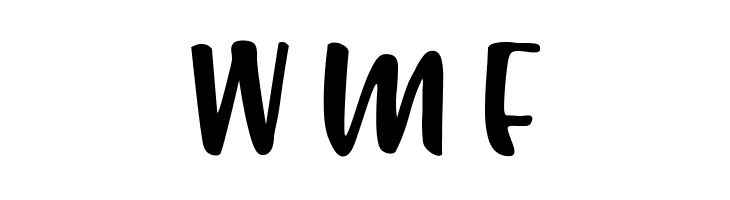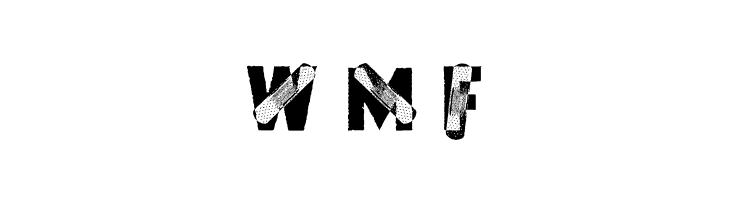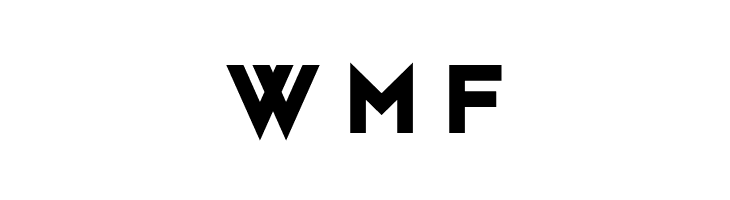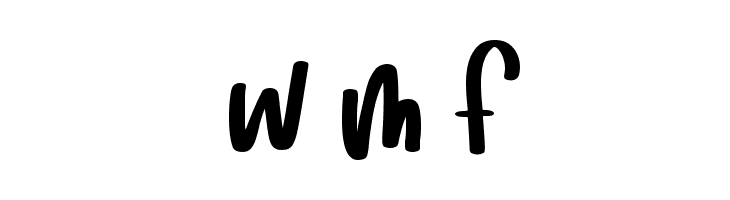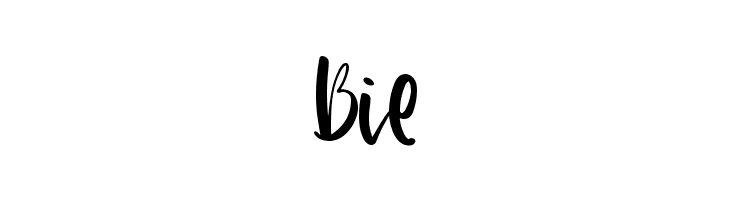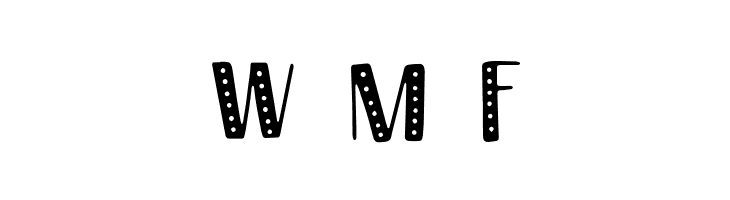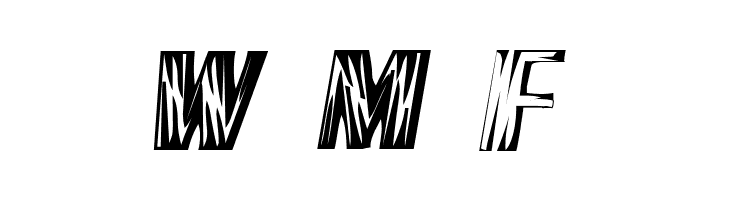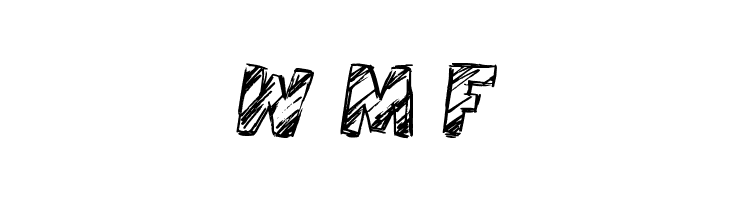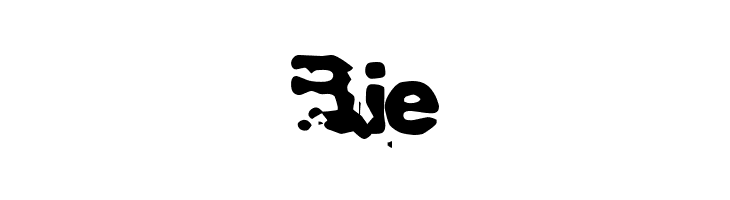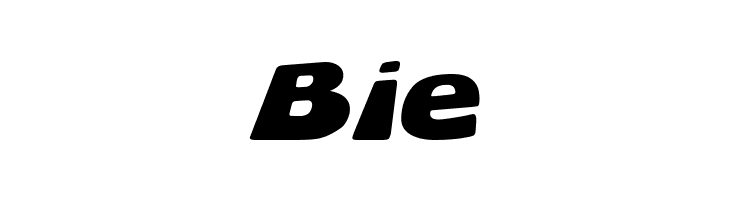
• Happy Dreamer
A playful, hand-drawn font with rounded, consistent strokes and a whimsical charm.
• Happy Happy Joy Joy
A playful and bold font with a wavy, dynamic style.
• Happy Milk
A playful, bold font with rounded, hand-drawn letterforms.
• Happy Pumpkins
A playful font with characters inside pumpkin shapes, perfect for festive themes.
• happy valentina
A playful and elegant script font with decorative swashes and flowing letterforms.
• Hapyster Demo
A bold, decorative font with intricate patterns inside each character.
• Harbinger!"
• Hard Sports
A bold, dynamic font with angular shapes and high contrast, perfect for energetic designs.
• Hardigan
A bold, geometric font with a modern and angular design.
• Hargroty
• Harristoon
A bold, sketch-like font with a playful and dynamic style.
• Harvest Time FreeTrial
A playful, dotted font with a hand-drawn, whimsical style.
• Hathor
• Hats II
A modern, geometric font with characters enclosed in bold frames, ideal for tech-themed designs.
• Haunting Spirits
A playful, spooky font with ghostly patterns and a hand-drawn style.
• Haven
• HAWAIIAN DREAMS PERSONAL USE
A decorative font with tropical floral patterns, ideal for vibrant and playful designs.
• Hawken Personal Use
A bold, angular font with a geometric and striking design.
• Hay Billy
A bold, playful handwritten font with thick strokes and rounded edges.
• Haystack
• Haze
• Hazel Deco Light Regular
A geometric Art Deco font with elegant, linear elements.
• Hazel Deco Light Regular
A geometric Art Deco font with clean lines and elegant curves.
• HB FontHANA